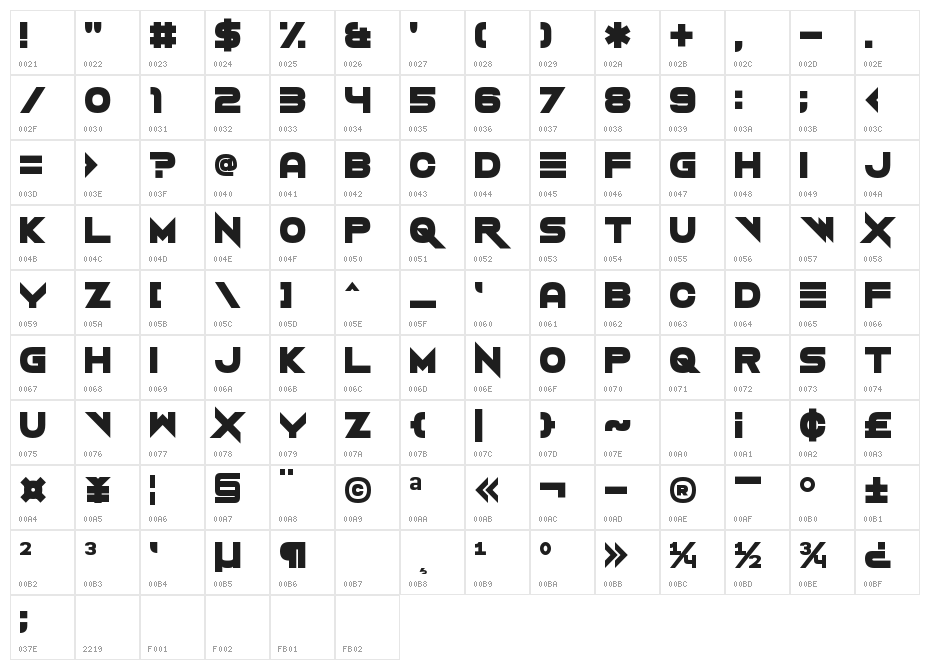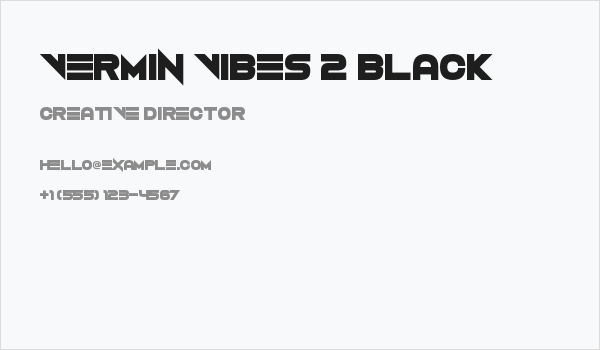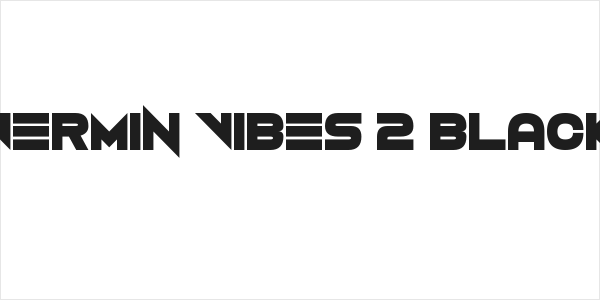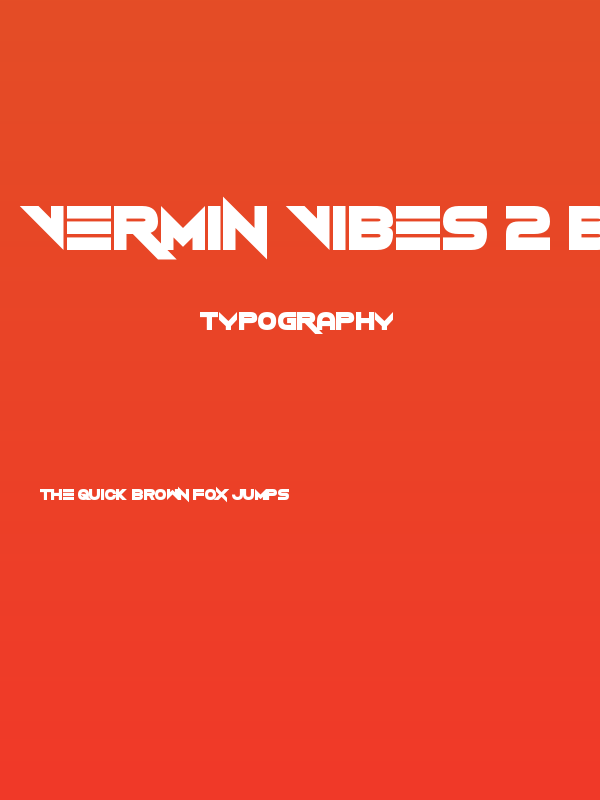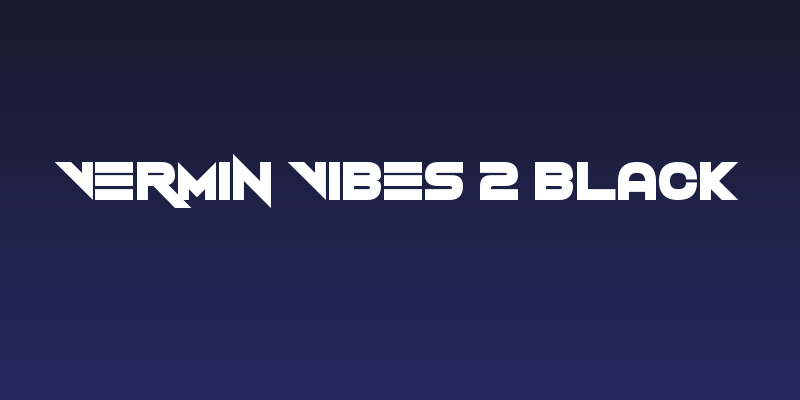
Vermin Vibes 2 Black Font
Vermin Vibes 2 Black Description
This font features a bold, geometric style with strong, angular lines and a futuristic aesthetic. The characters are constructed with a consistent thickness, giving them a solid and impactful appearance. The uppercase letters are particularly striking, with unique cuts and angles that create a dynamic and edgy look. The numerals and special characters maintain this bold and modern design, ensuring a cohesive appearance across all glyphs. This font is ideal for projects that require a strong visual impact and a contemporary feel.
Proposed ProjectsIdeal for branding, posters, album covers, and any design needing a modern and impactful typeface.